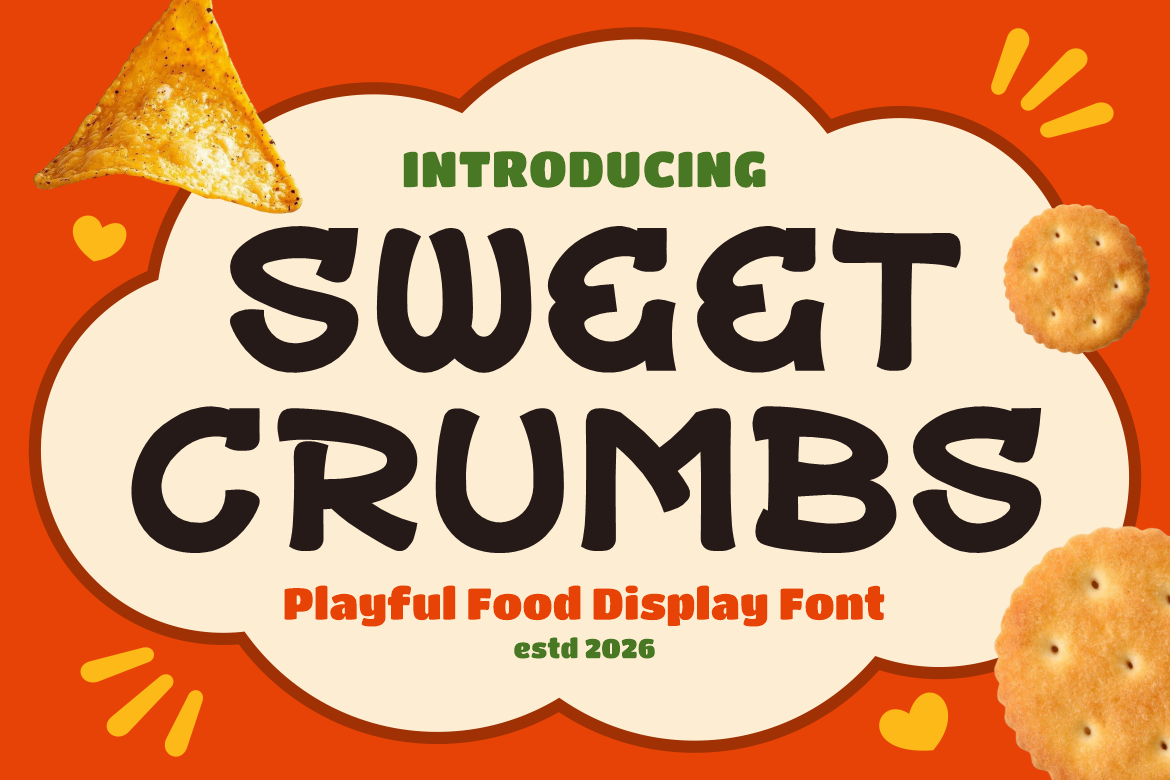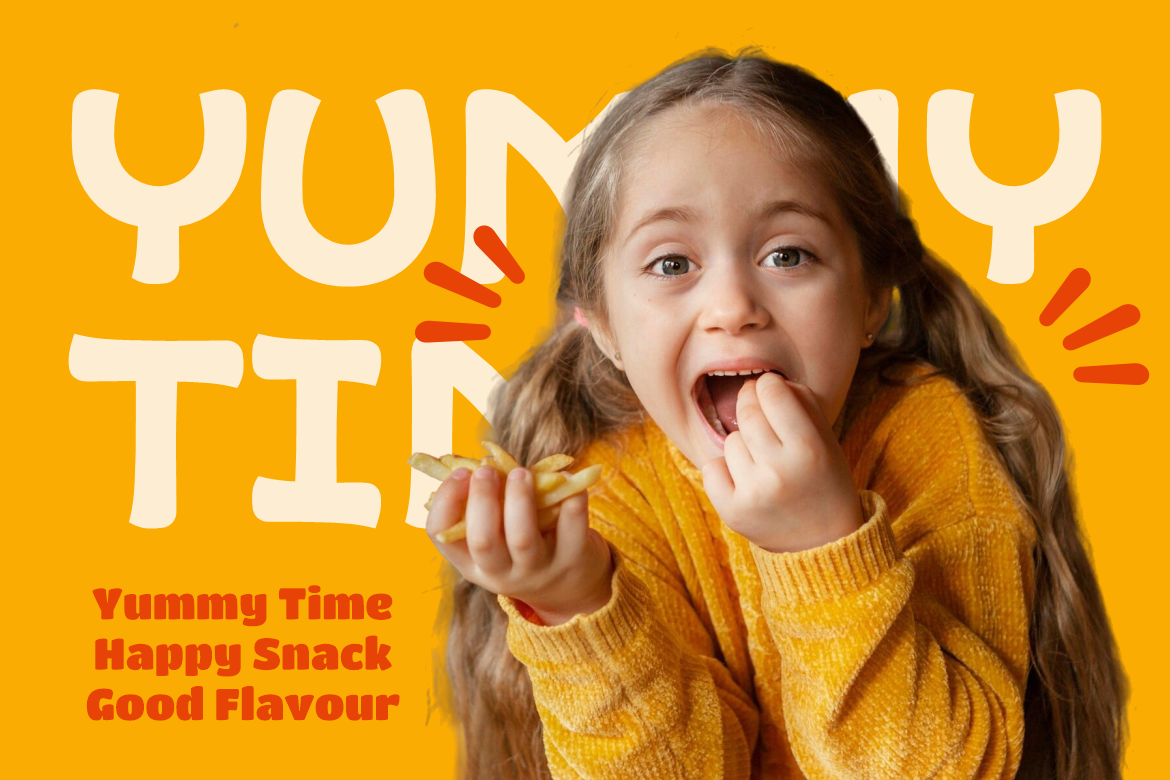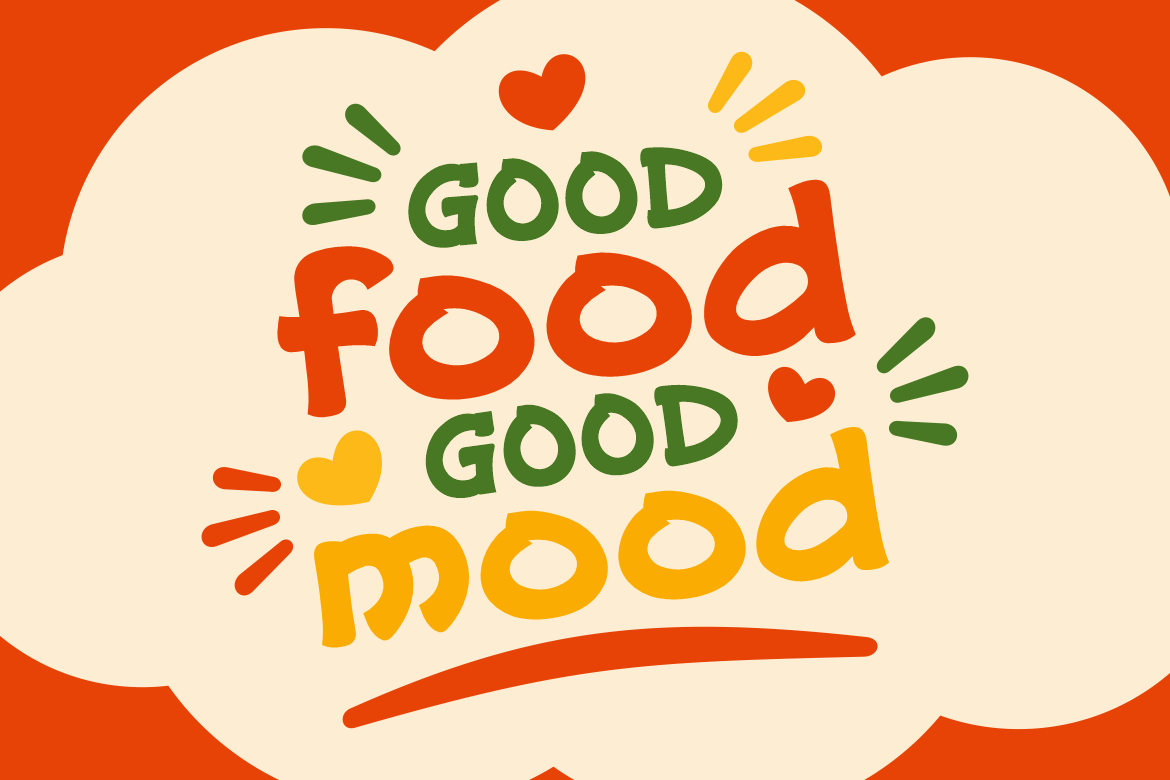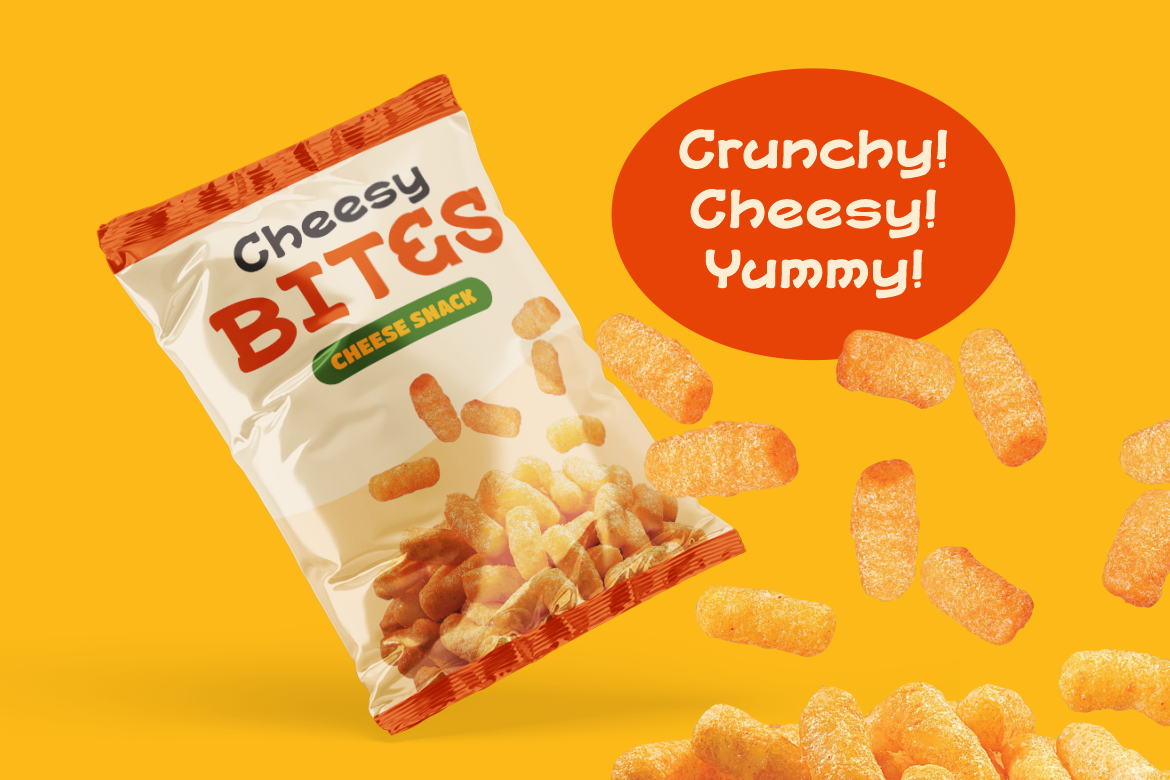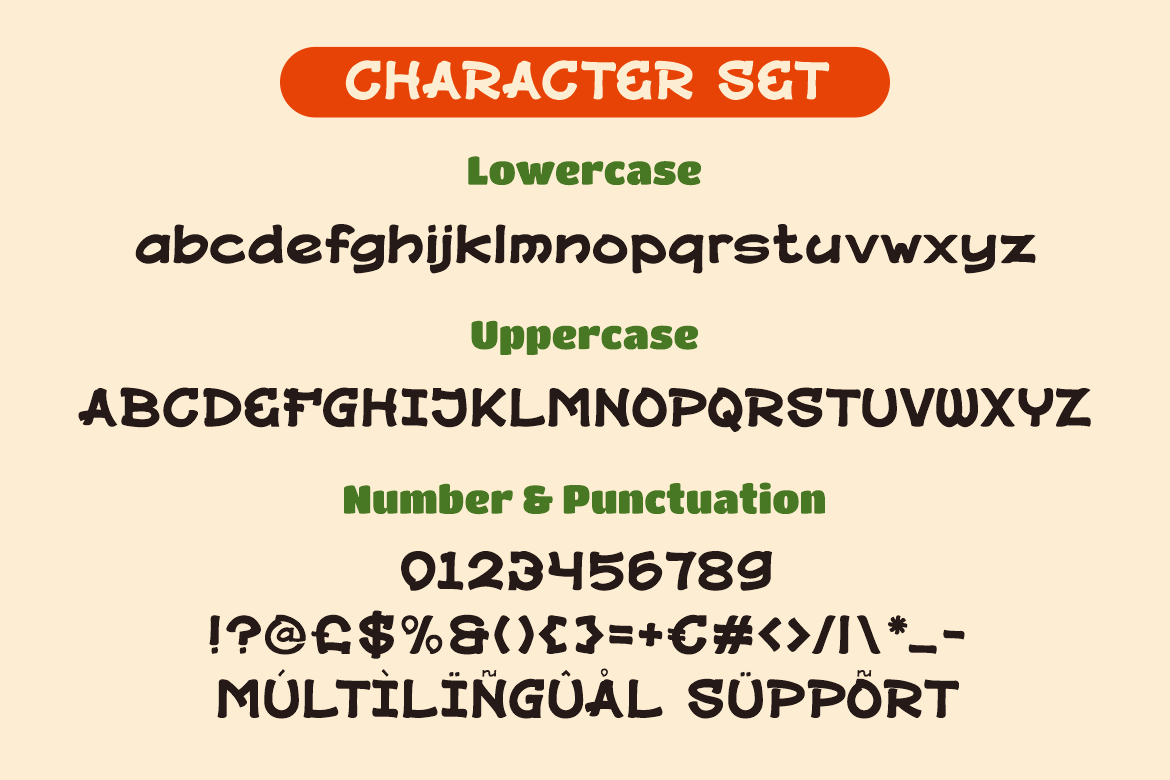
Sweet Crumbs Playful Food Display Font brings a friendly character to food branding and cheerful business identity. Its rounded letterforms feel soft, chunky, and slightly irregular, creating an inviting handmade personality. The playful shapes remain clear at large sizes and give short words strong visual impact. This font works especially well for snack brands, food products, bakery logos, candy shops, and dessert businesses. It also suits cheese snacks, crackers, chips, cookies, chocolate products, and ice cream branding with a warm approach.
Its expressive structure makes the typeface effective for logo design, packaging, advertising, posters, headlines, labels, and store signage. Sweet Crumbs Playful Food Display Font can support broader food businesses beyond snack products. Restaurants, cafes, bakeries, dessert shops, food trucks, and family restaurants can use its cheerful personality. It also fits menu titles, social media ads, product labels, promotional posters, sticker designs, book covers, magazine titles, and greeting cards. The irregular curves create movement while keeping the lettering friendly, readable, and memorable.
The font also works for businesses that need a fun identity without looking overly childish. Food brands can use it for cereal packaging, biscuit packaging, candy packaging, chocolate packaging, and frozen dessert promotions. Event designers can apply it to birthday posters, party invitations, kids events, and food festivals. Creative studios can use it for cartoon projects, film titles, craft projects, and playful business campaigns. Its energetic forms help logos feel approachable while giving packaging and advertising a strong visual presence across print and digital media.